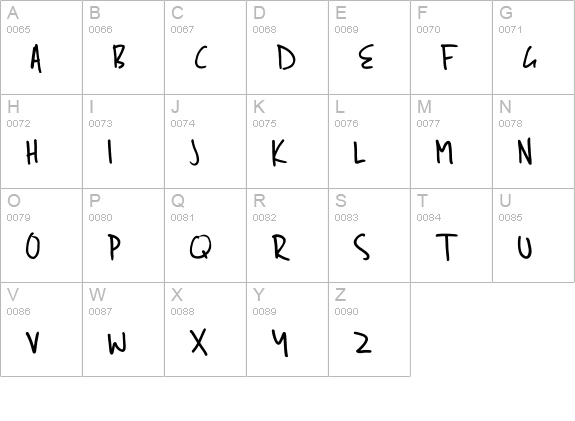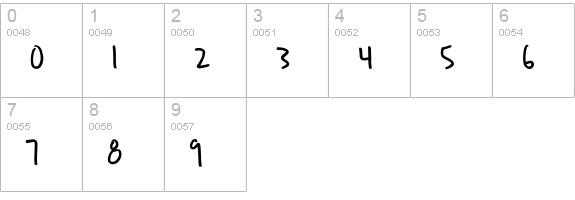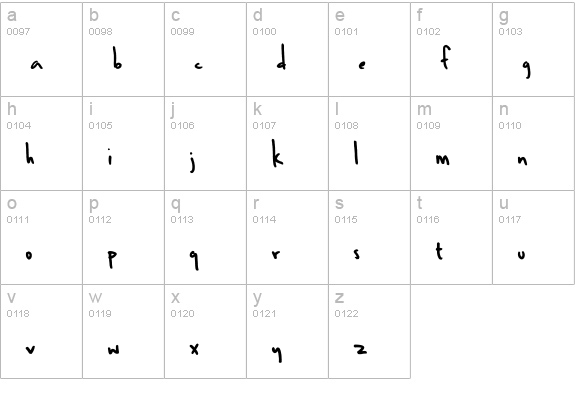
Introducing the elegant and versatile Ben Brown font, a timeless typeface that effortlessly combines modern sophistication with classic charm. This beautifully crafted font features clean lines and graceful curves, making it perfect for a wide range of design projects, from elegant invitations to stylish branding. What sets Ben Brown font apart is not only its impeccable design but also its accessibility - it is available for free download at FontsMarket.com. This means that you can incorporate this stunning font into your projects without any cost, adding a touch of refinement and style without breaking the bank. Whether you're working on a wedding invitation, a logo design, or any other creative endeavor, Ben Brown font is sure to elevate your work to the next level. Download it today and unleash your creativity with this exquisite typeface.